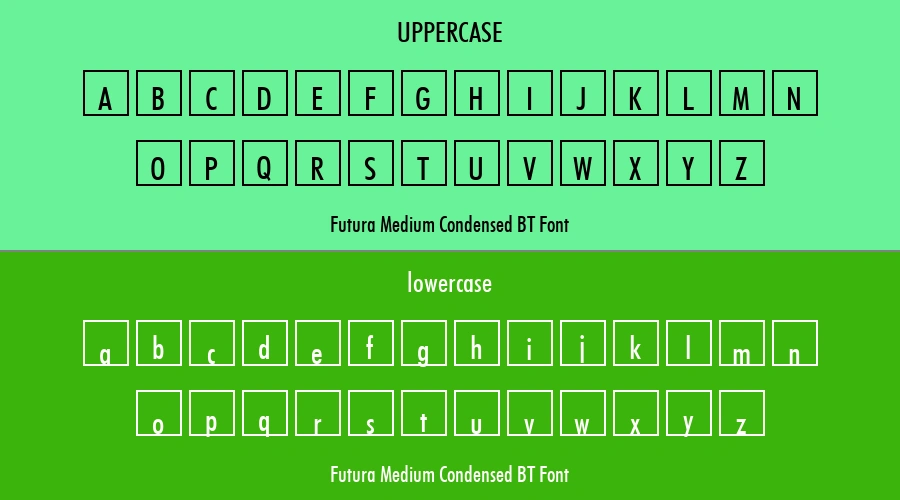
About Futura Medium Condensed BT Font
Futura Medium Condensed BT Font embodies typographic excellence through its masterful combination of dynamic forms and signature style. Created for corporate reports, this typeface delivers exceptional functionality and historical accuracy across all applications. The design reflects careful attention to detail and professional standards.
Advanced capabilities include distinctive concave curves and versatile terminal characters, giving designers creative control. When used in corporate communications, Futura Medium Condensed BT Font exhibits remarkable impact retention. The harmonious balance between x-height and creative versatility sets this typeface apart.